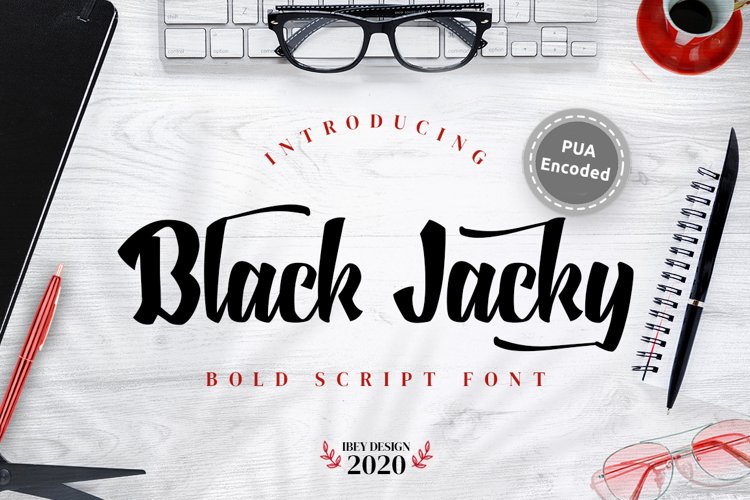
Black Jacky - Bold Script Font
BlackJacky
Black Jacky Bold Script Font is a bold and elegant script font.
Black Jacky Bold Script Font is versatile script font that has a wide spectrum of applications ranging from greeting cards to headlines and is guaranteed to add a romantic feel to your next project.